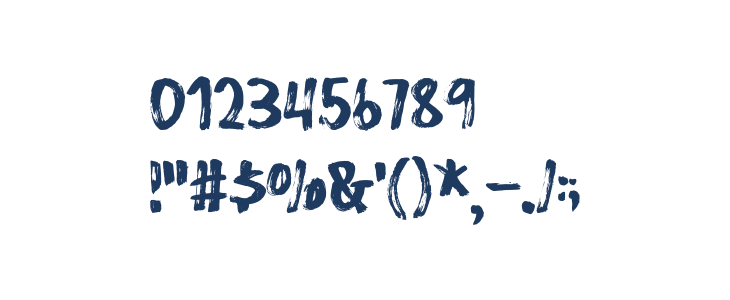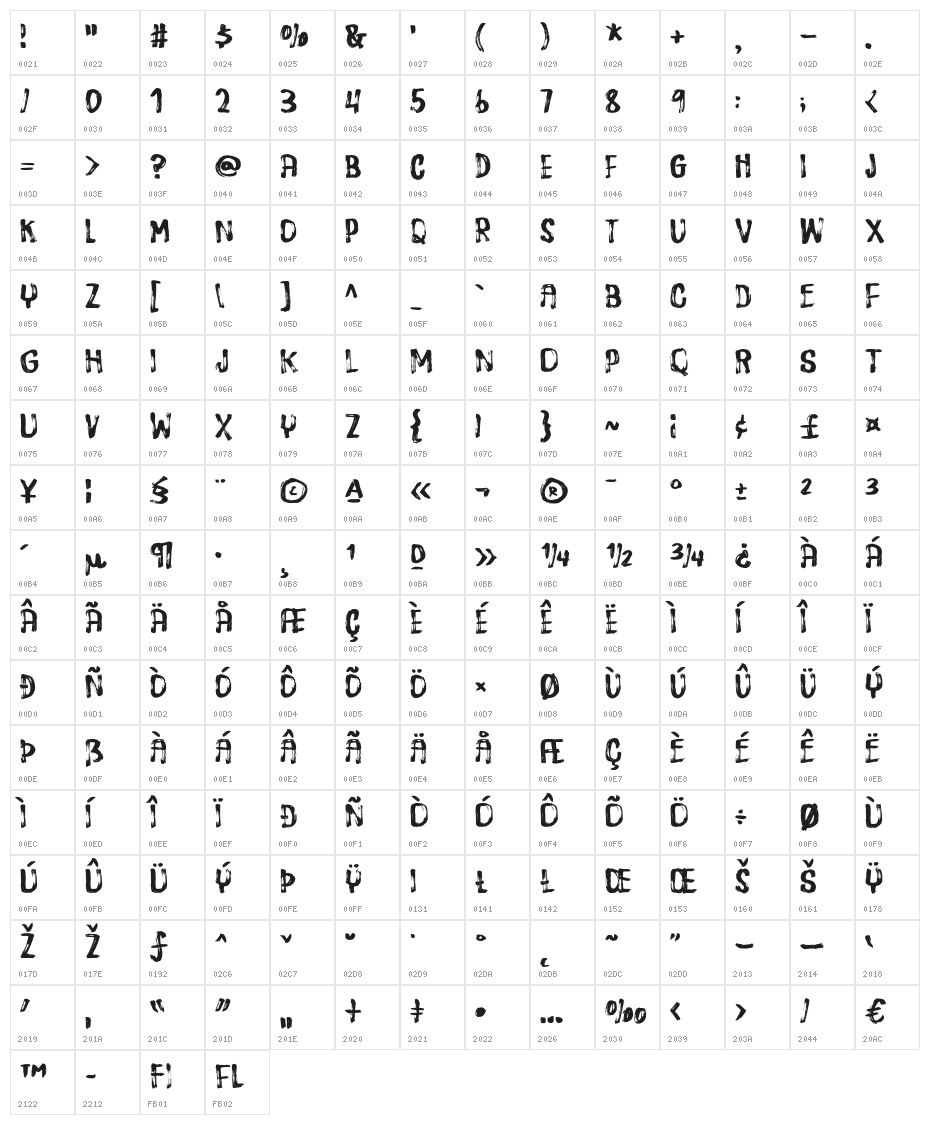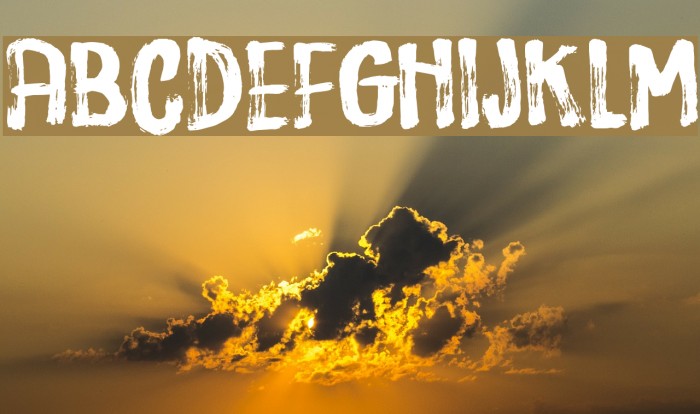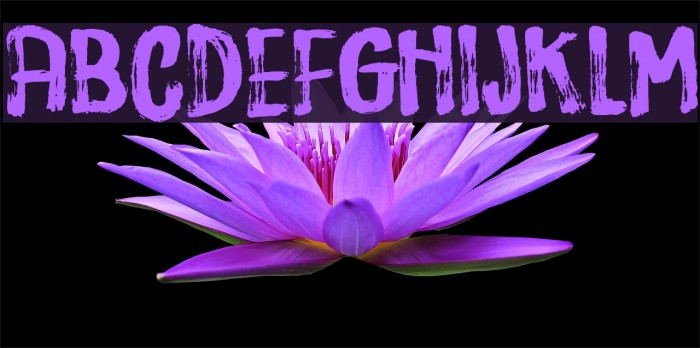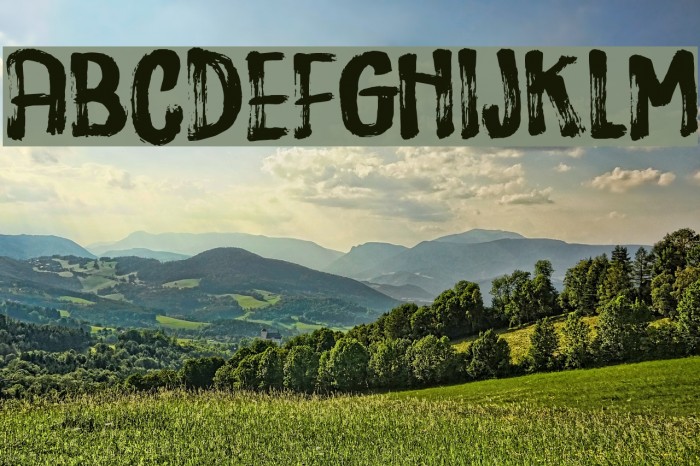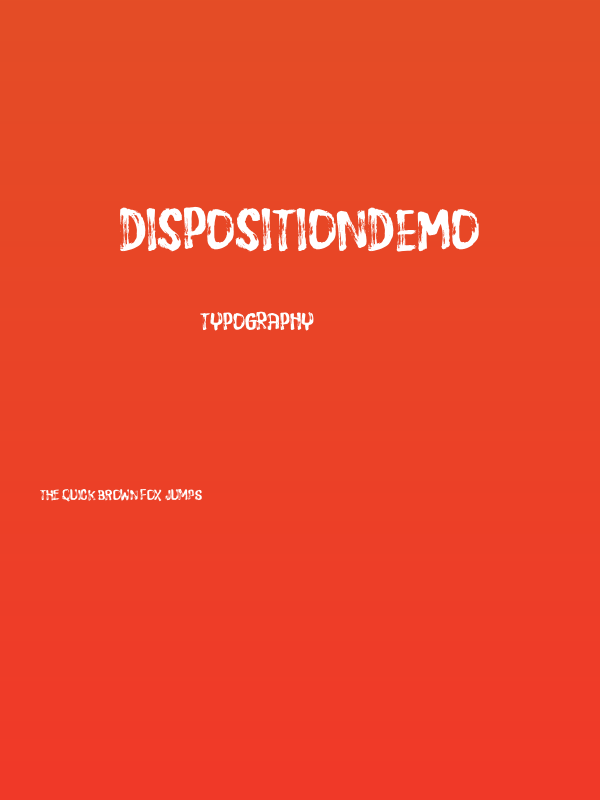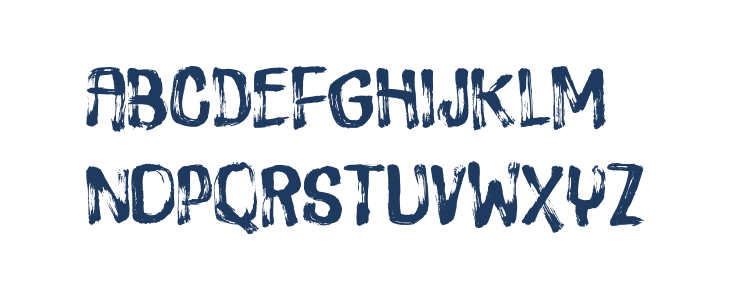
DispositionDEMO Font
DispositionDEMO Description
This font features a bold, expressive brush style that gives it a dynamic and energetic appearance. The characters are crafted with rough, uneven strokes, creating a sense of movement and spontaneity. The uppercase and lowercase letters maintain a consistent style, with each character exhibiting unique variations that enhance the hand-painted look. The numbers and special characters follow the same aesthetic, ensuring a cohesive appearance across all text elements. The font's raw and artistic nature makes it ideal for projects that require a touch of creativity and flair.
| Proposed Projects | Ideal for artistic projects, posters, branding, and any design requiring a bold, creative touch. |